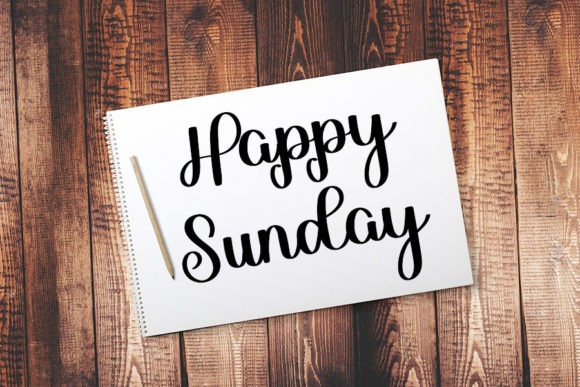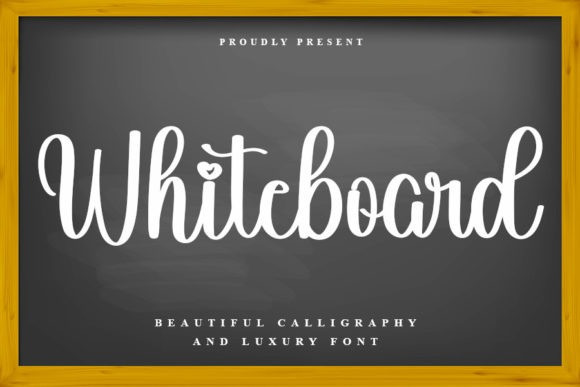
Whiteboard Font
Whiteboard Script Font is a lovely and delicate script font that exudes elegance and class. This font was particularly crafted for those who need a beautiful and refreshing look to their designs.